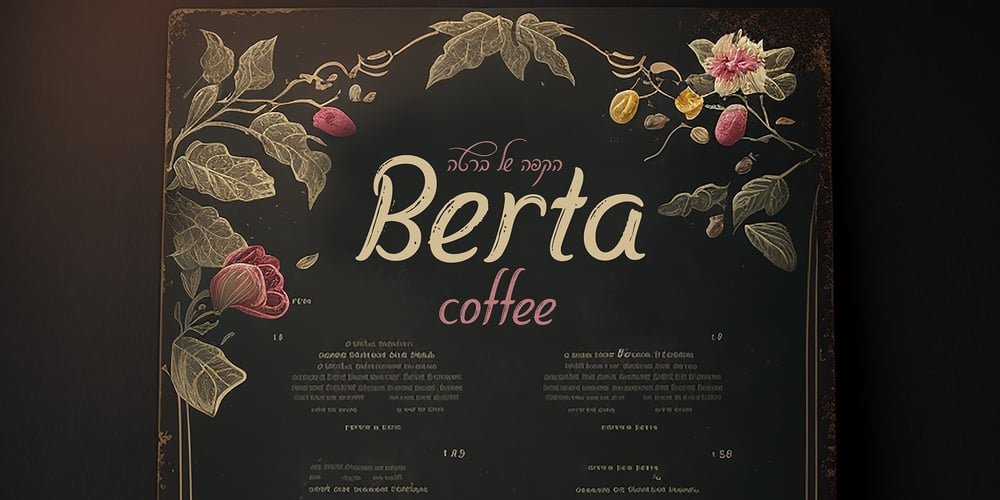
Lia Berta Font Family was designed by Lia Baratz and published by Lia Baratz Fonts. Lia Berta contains 1 styles and family package options. Berta font is a typeface design that is inspired by vintage typographical styles. This font have a classic, timeless feel with distinctive details like, flourished lines, and varied stroke widths. They are commonly used in design projects that require a historical or nostalgic touch, such as wedding invitations, posters, book covers, and more. With a vintage font, designers can add a touch of sophistication and elegance to their work while also evoking a sense of bygone eras.Support both English and Hebrew letters